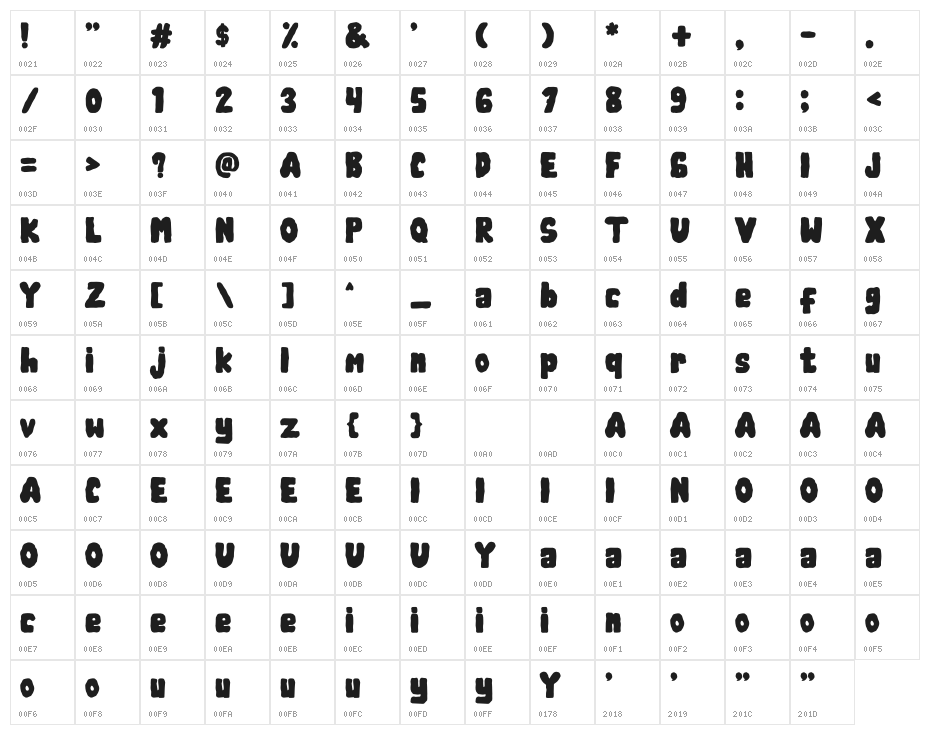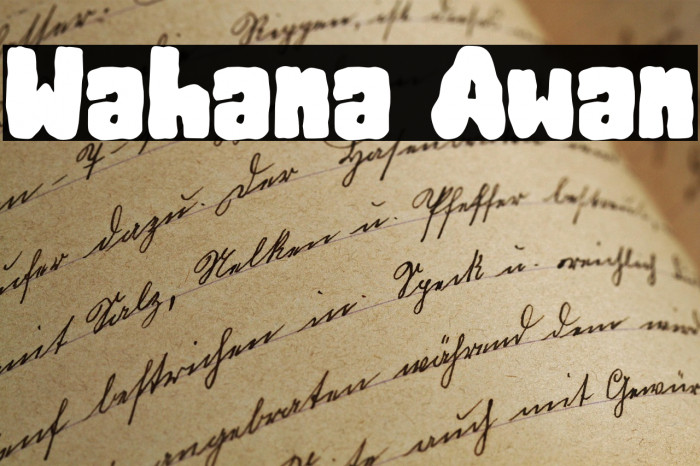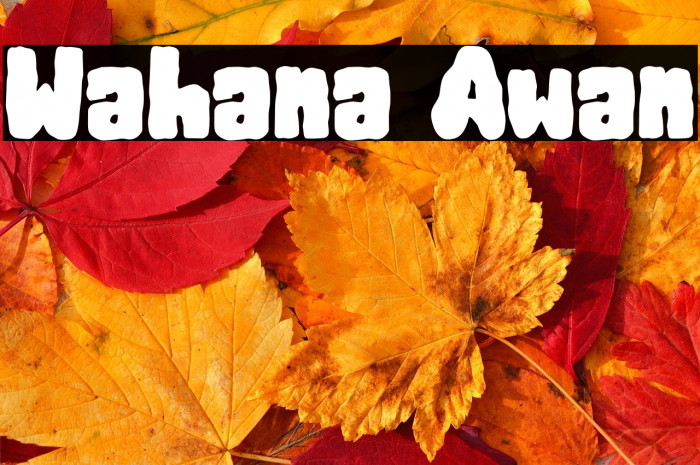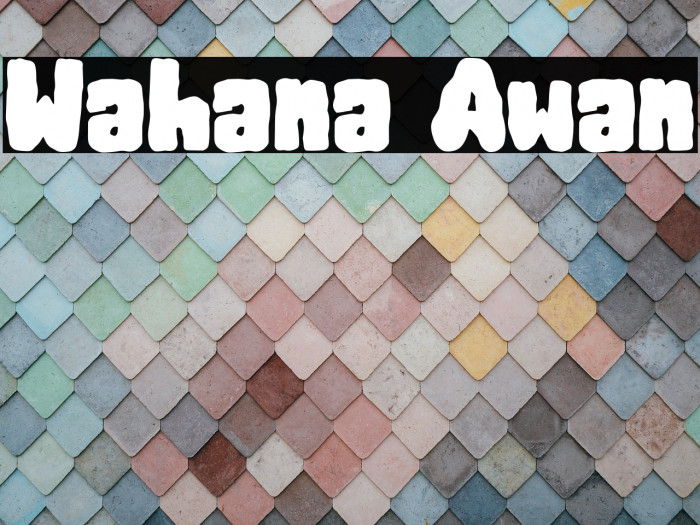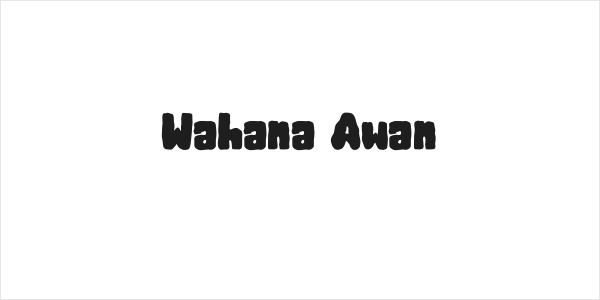
Wahana Awan Font
Wahana Awan Description
This font features a bold and playful style with thick, rounded strokes that give it a bubbly and friendly appearance. The characters are uniformly bold, with a slightly irregular shape that adds a whimsical touch. The uppercase and lowercase letters maintain a consistent weight, enhancing readability while still offering a unique, hand-drawn aesthetic. The numbers and special characters follow the same design principles, ensuring a cohesive look across all glyphs. This font's distinct style makes it stand out, ideal for projects that require a fun and engaging visual element.
| Proposed Projects | Ideal for children's books, playful branding, posters, and any project needing a fun, engaging typeface. |